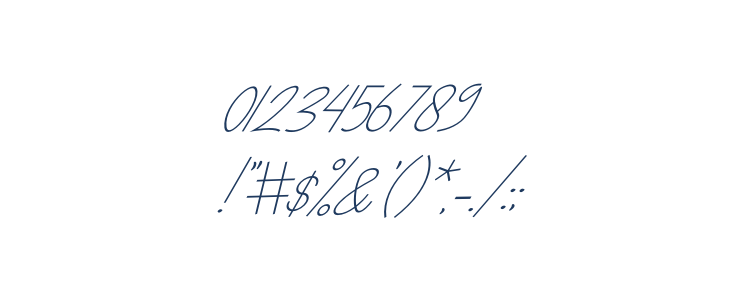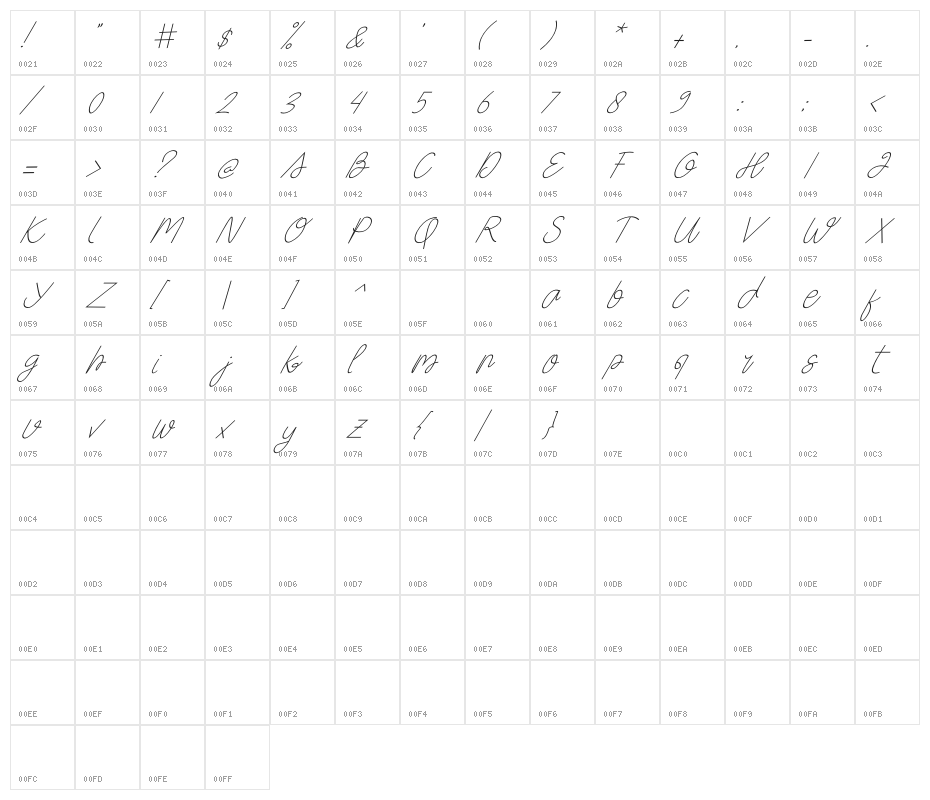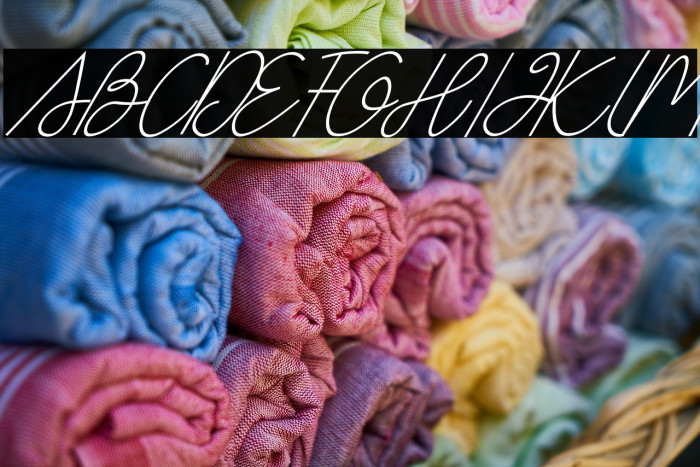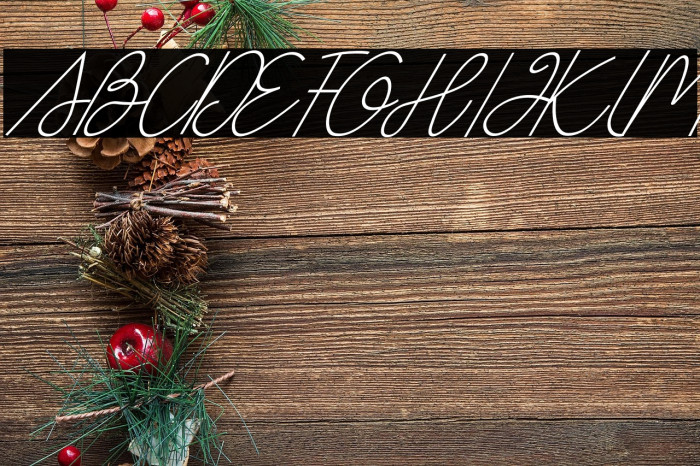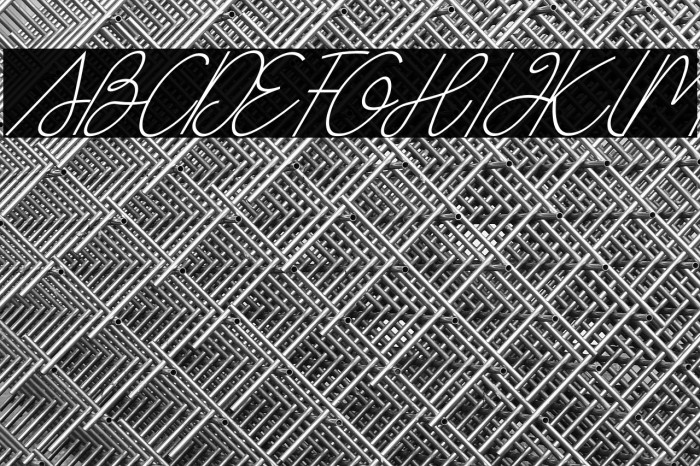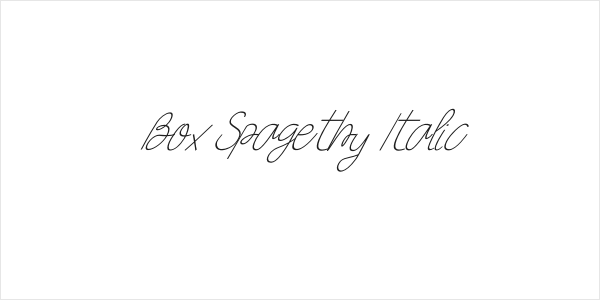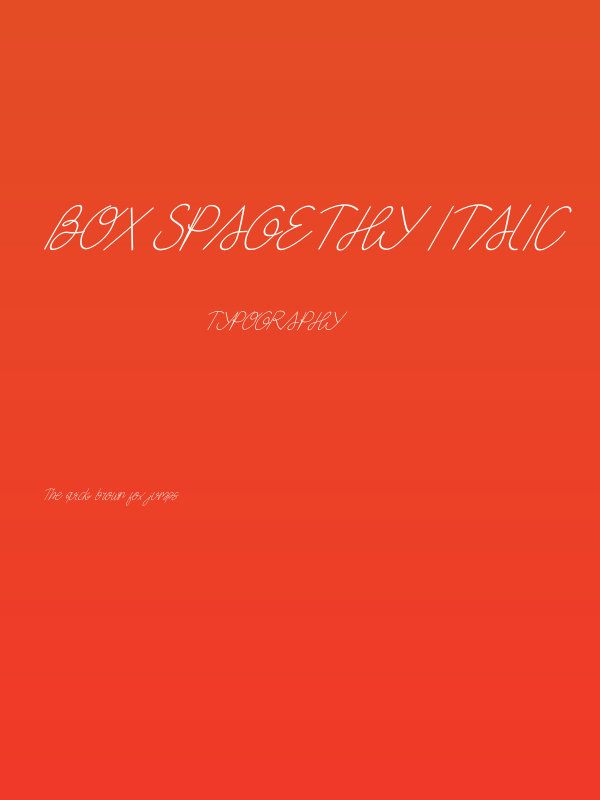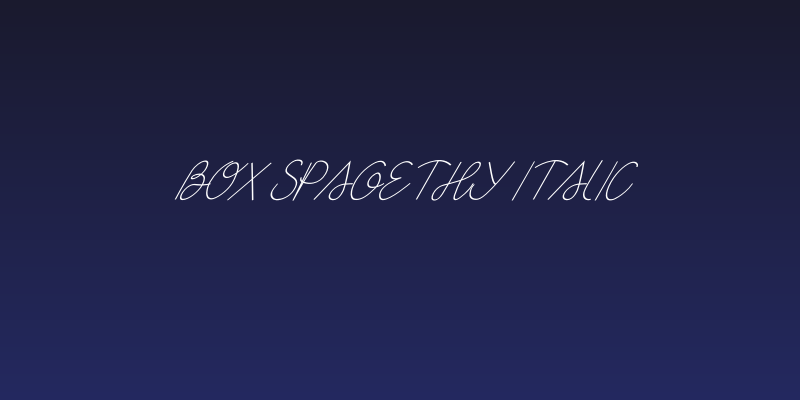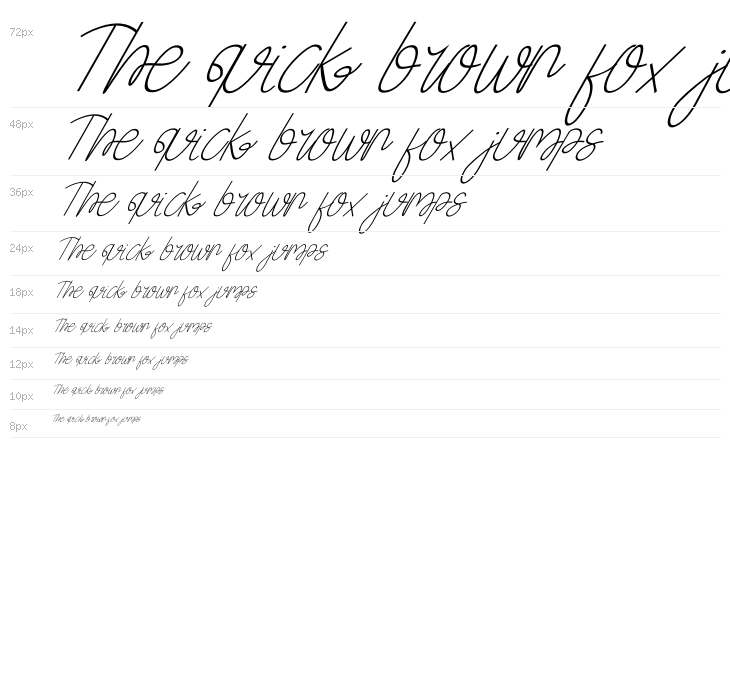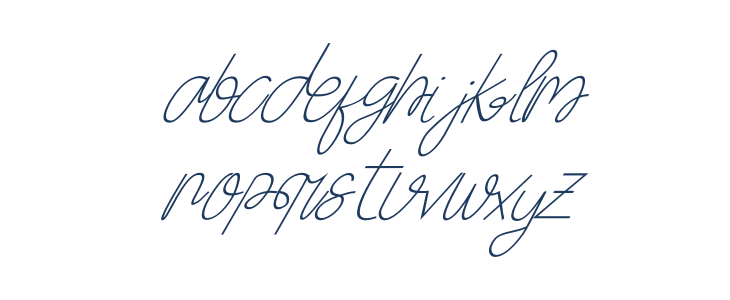
Box Spagethy Italic Font
Box Spagethy Italic Description
This font features a dynamic and flowing script style, characterized by its elegant and elongated letterforms. The strokes are smooth and continuous, giving it a handwritten appearance that exudes sophistication and fluidity. The uppercase letters maintain a consistent height, while the lowercase letters exhibit a playful and slightly exaggerated slant, enhancing the overall cursive effect. Numbers and special characters are seamlessly integrated, maintaining the same graceful aesthetic. The font's design is both stylish and legible, making it suitable for a variety of creative applications.
Overall StyleElegant, Handwritten
Use CaseLogos, Invitations, Decorative text
Proposed ProjectsIdeal for wedding invitations, greeting cards, branding, and elegant packaging designs.